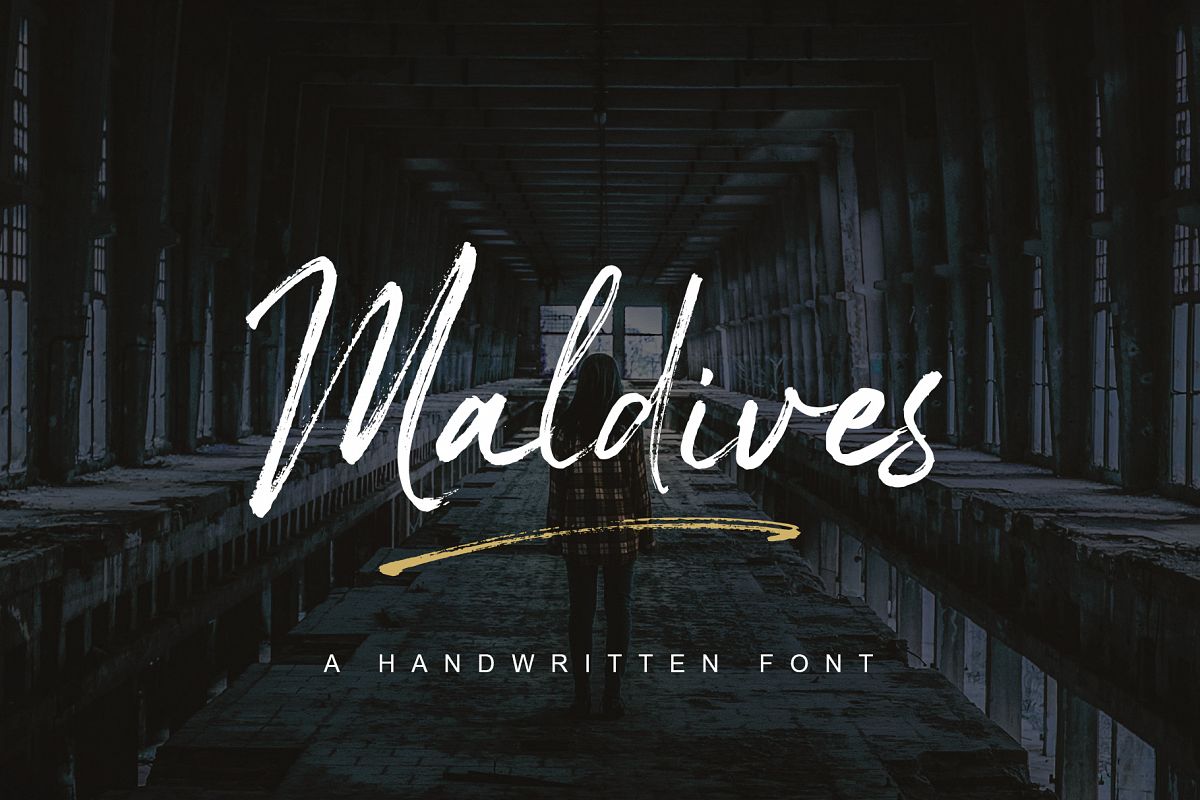
Maldives Handbrush Font
Introducing the Maldives a handwritten script font, natural handwriting that will be very suitable for various needs Such as apparel, invitations, books tittle, stationery design, quotes, branding, logos, greeting cards, t-shirts, packaging designs, posters and more. The Maldives also includes a complete set of uppercase and lowercase letters, as well as multi-language support, numbers, punctuation, ligatures, and swashes.